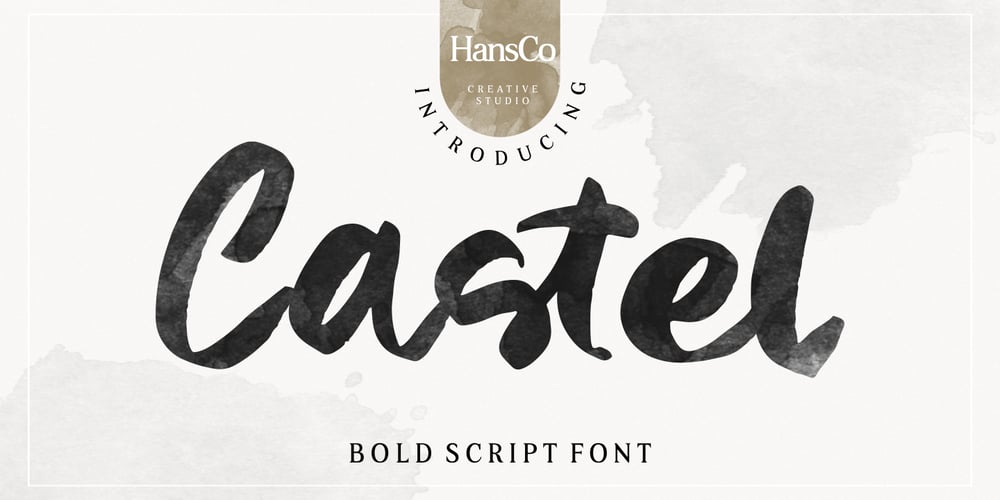
Castel Font Family was designed by Burhan Afif and published by HansCo. Castel contains 1 styles and family package options. Castel is a handwritten font made with natural watercolor texture. The solid texture makes it look modern and simple, strong and feminine at the same time. Some purposes you can use Castel for are logos, product branding, wedding invitations, quotes, flyers, magazine, Instagram templates or for text overlay to any background image.Thank you for your purchase! I hope you have fun with Castel.Enjoy!